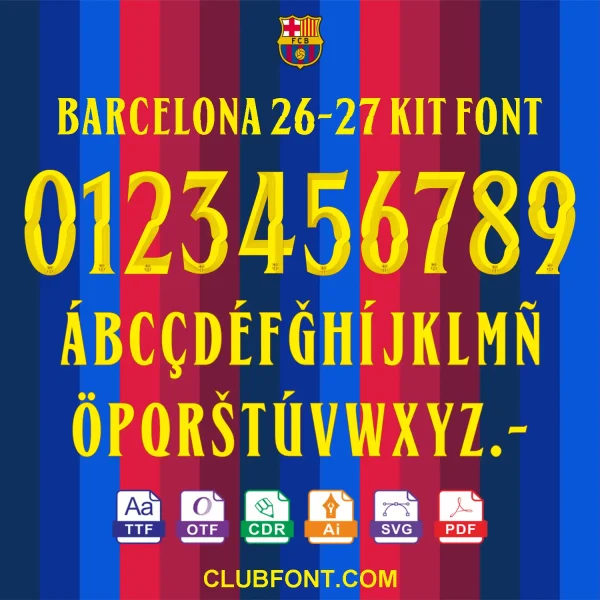
FC Barcelona 2026-27 Kit Font – Digital Vector Pack
This digital pack reproduces the FC Barcelona 2026-27 font, officially named “FC Barcelona Modernista”, the typeface debuted on the Blaugrana home jersey for the 2026/27 season. Inspired by Catalan Modernism, the letterforms feature stylised shapes, vertical emphasis and organic touches that echo Barcelona’s architectural heritage – the same visual language worn by the men’s and women’s first teams in the UEFA Champions League, Copa del Rey and Spanish Super Cup.